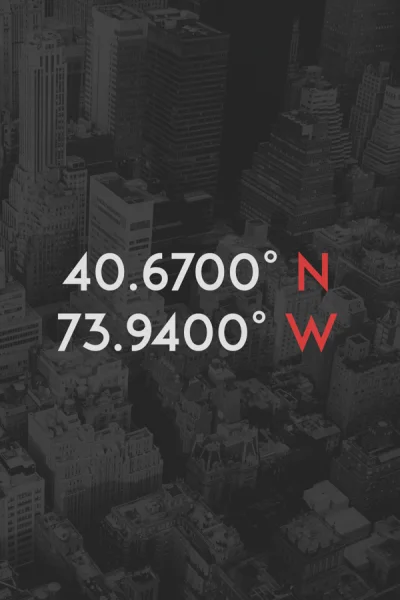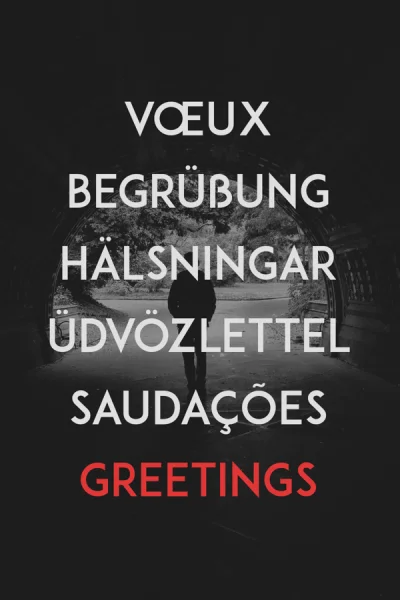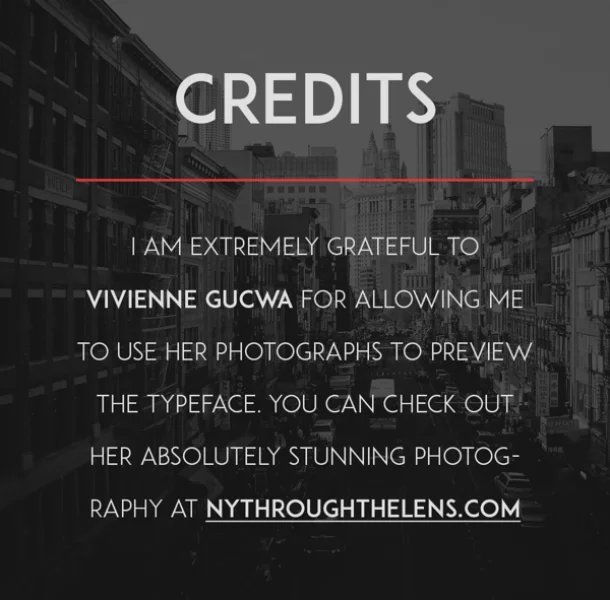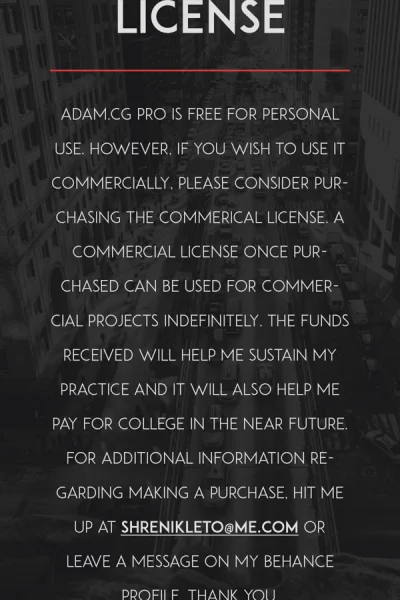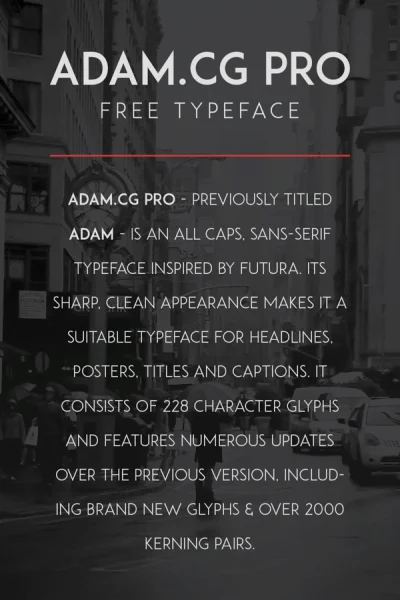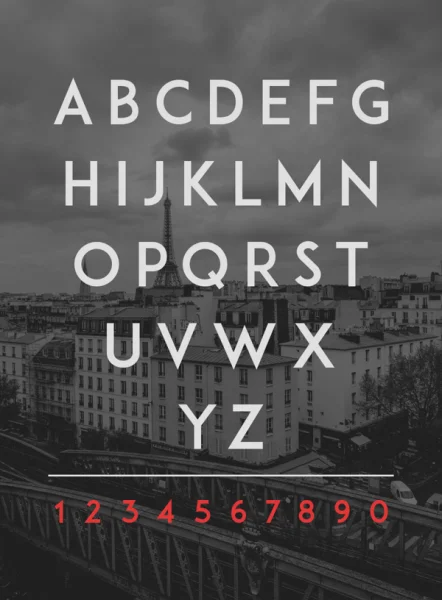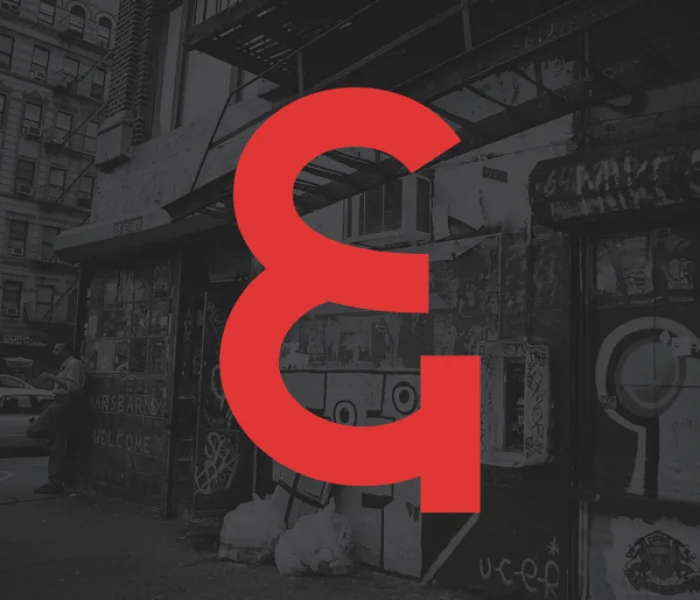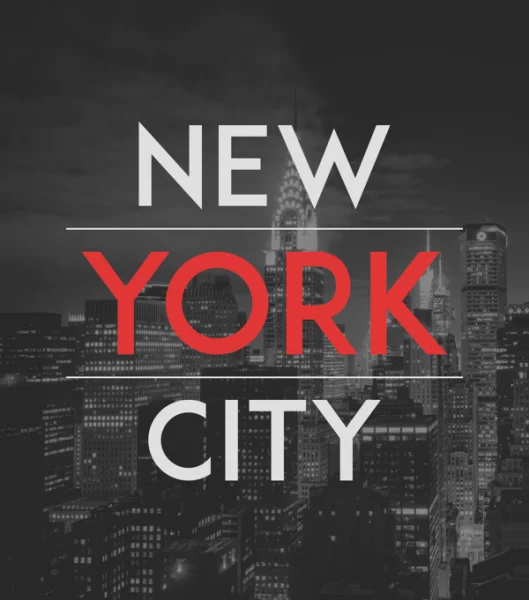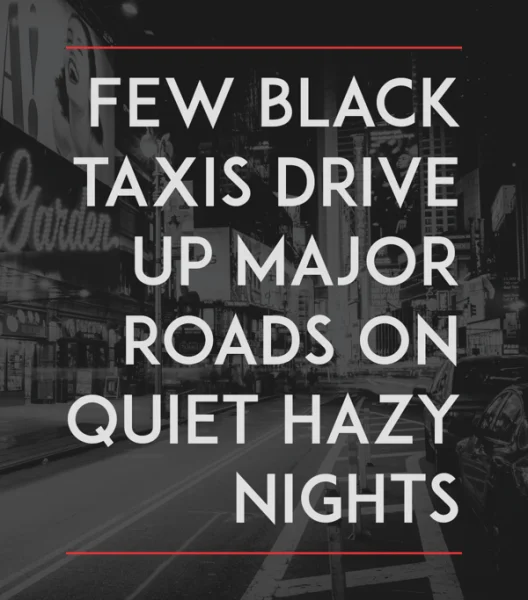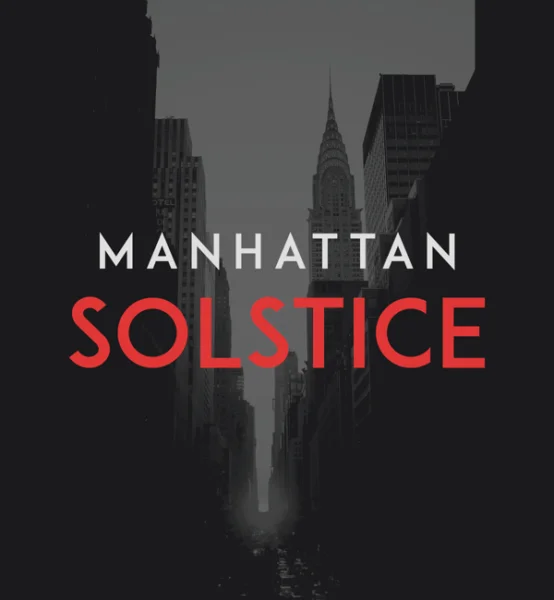
ADAM.CG PRO - previously titled ADAM - is an all caps, sans-serif typeface inspired by Futura. Its sharp, clean appearance makes it a suitable typeface for headlines, posters, titles and captions. It consists of 228 character glyphs and features numerous updates over the previous version, including brand new glyphs & over 2000 kerning pairs.